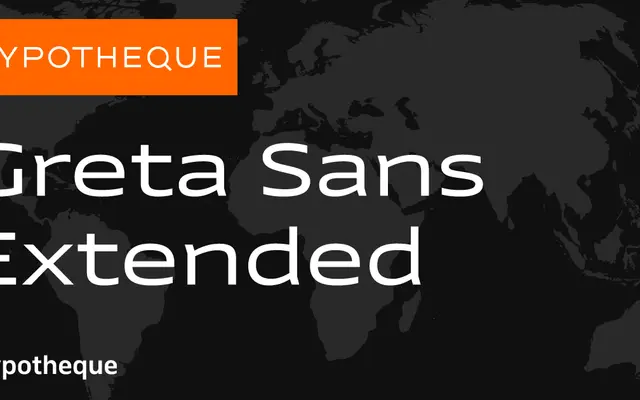
Greta Sans Extended
Typotheque · Peter Biľak · 2007
Greta Sans Extended specimen from Typotheque
The extended-width cut of Typotheque's large-scale humanist sans system, spanning eleven weights with matching italics and a variable font option.
Greta Sans Extended is one of four width variants in the Greta Sans system, a humanist sans-serif originally built for editorial and newspaper use. The extended cut runs from Hairline to Super across eleven weights, each with a matching italic, giving designers considerable range for display-scale and wide-measure settings. A variable font version is also available, covering the full range within a single file.
Greta Sans is a large humanist sans-serif system designed for demanding editorial and text environments, with the Extended width being one of several width variants across a comprehensive multi-width family.